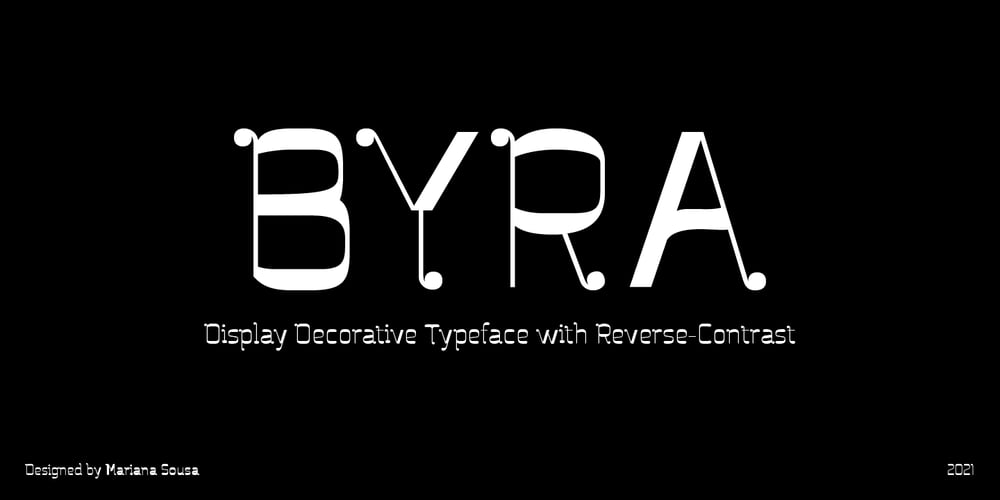
Byra Font Family was designed by Mariana Sousa and published by Mariana Sousa. Byra contains 2 styles and family package options. Meet Byra! A new approach to a decorative typeface. This typeface has asymmetrical terminals (round), which means than has serifs, but not in every side of the letterforms. The mix between both classic and modern elements, as terminals and the inverted contrast, gives the typeface a strong personality. Byra contains two weights, regular and bold, it’s a display typeface and great for headlines, branding and editorial proposes